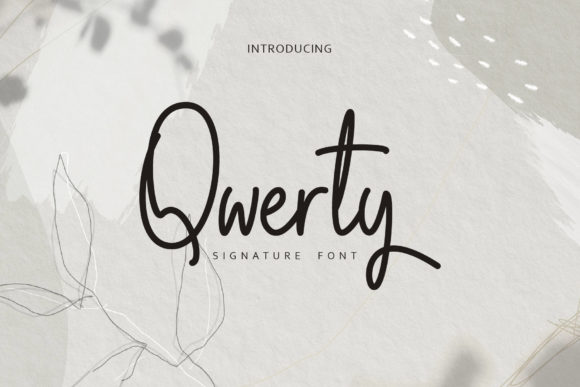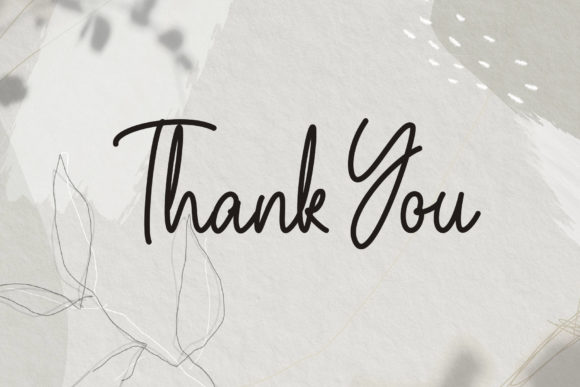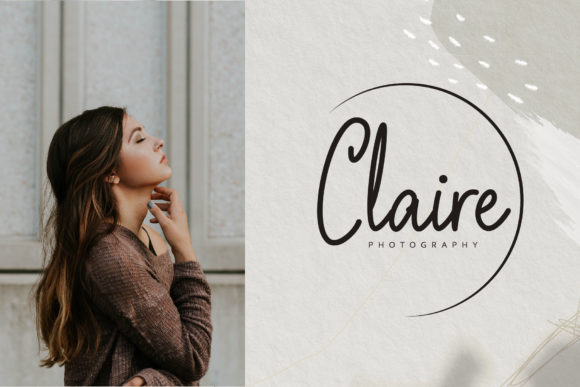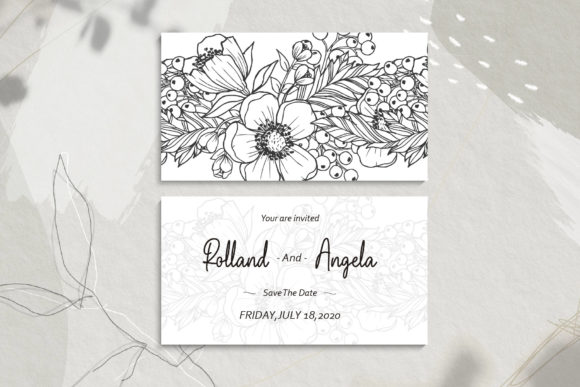
About Qwerty Font
Qwerty is a delightful handwritten font that brings a sweet and delicate touch to your designs. With its dainty and joyful style, this font is perfect for adding a romantic and personalized feel to various projects, particularly for wedding invitations, cards, and other designs that require an intimate and heartfelt touch.
The elegance and charm of Qwerty make it an ideal choice for creating beautiful wedding stationery. Whether you’re designing invitations, save-the-date cards, or thank-you notes, this font adds a touch of romance and sophistication. Its delicate strokes and graceful curves create a sense of beauty and grace, capturing the essence of a special occasion.
In addition to wedding-related designs, Qwerty is also versatile enough to be used for a variety of other projects. Its delicate and playful nature makes it suitable for creating personalized greeting cards, love notes, or any design that aims to convey a heartfelt message. The font’s handwritten style adds an authentic and intimate feel, making your designs more personal and meaningful.
Qwerty can also be applied to digital designs, such as social media graphics, blog headers, or branding elements. Its delicate and joyful look brings a sense of warmth and friendliness to your online presence. Whether you’re sharing inspiring quotes, announcing special promotions, or simply adding a touch of whimsy to your visual content, Qwerty will capture attention and create a memorable impression.
Overall, Qwerty is a sweet and delicate handwritten font that adds a romantic and personalized touch to your designs. Its dainty and joyful style makes it particularly well-suited for wedding invitations, cards, and other projects that require a touch of love and intimacy. Embrace the beauty and elegance of Qwerty and let it infuse your designs with a sense of charm and romance.